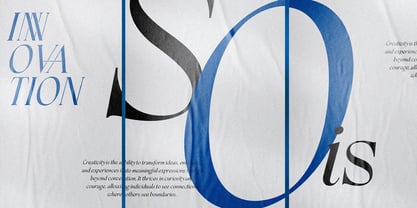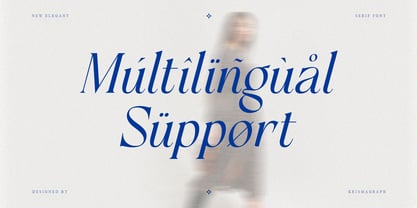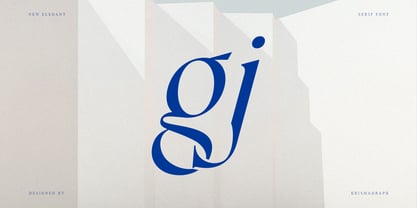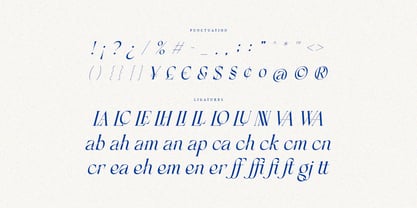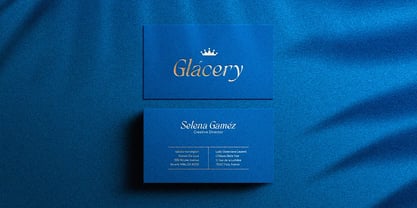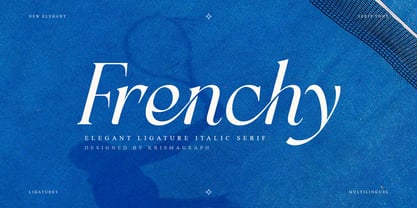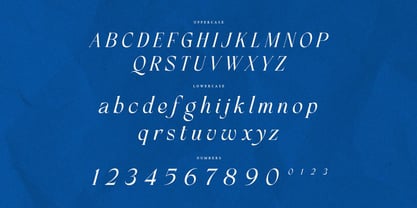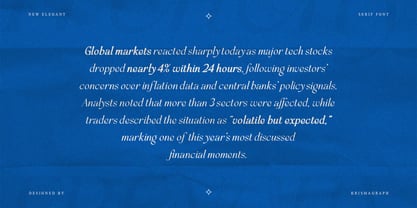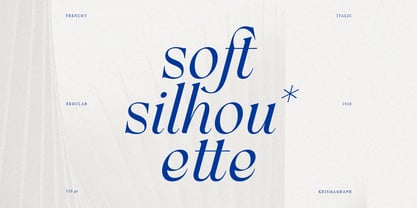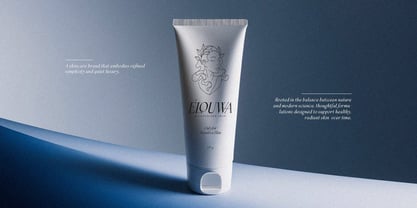
Frenchy Italic
by Krismagraph
The Frenchy Italic Font Family was designed by Ratna Krismawati and published by Krismagraph. Frenchy Italic contains 1 styles. More about this family
Frenchy Italic is an elegant italic serif font featuring smooth curves, refined ligatures, and expressive letterforms. Designed to complement modern serif compositions, this italic style adds movement and sophistication without sacrificing readability. Perfect for editorial highlights, branding accents, quotes, logos, invitations, packaging, and stylish headlines, Frenchy Italic brings a subtle sense of flow and personality to any layout. Its carefully crafted ligatures enhance typographic rhythm and visual harmony. Frenchy Italic is ideal for designers who want a refined italic serif that feels graceful, modern, and polished. What you get : - Frenchy Italic - Numbers, fractions - Punctuation and symbols - Alternates - Ligatures - Multilingual support Feel free to follow, like, and share. Thank you and I hope you enjoy it!
Designers: Ratna Krismawati
Foundry: Krismagraph